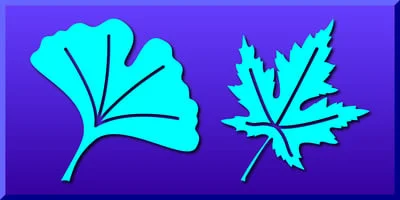
Leaf Assortment Font
Leaf Assortment Font is ideal for botanical garden signage, eco-friendly product packaging, nature education materials, organic farm branding, environmental conservation campaigns, herbarium displays, forest therapy centers, sustainable lifestyle blogs, natural skincare packaging, and any green project that celebrates the incredible diversity and natural beauty of plant life and ecological awareness.
What makes Leaf Assortment Font exciting is its comprehensive botanical collection that captures the infinite diversity and intricate beauty of nature's most essential elements. This typeface embodies the essence of botanical discovery with carefully illustrated leaf symbols representing everything from delicate ferns to mighty oak leaves, creating a visual encyclopedia of plant diversity. The font's educational character makes it perfect for brands and projects that want to communicate environmental awareness, natural beauty, and the fascinating complexity of botanical ecosystems.
The Leaf Assortment Font family includes extensive botanical categories and seasonal variations, featuring deciduous trees, evergreens, tropical plants, herbs, and wildflowers along with decorative vine elements and nature-inspired ornamental details. This comprehensive collection allows designers to create authentic botanical typography that maintains the font's signature natural character while providing incredible versatility for various environmental and educational design applications.
When exploring authentic botanical typography, Leaf Assortment Font offers designers an exceptional opportunity to work with a typeface that genuinely captures the spirit of botanical education and environmental stewardship. This font demonstrates innovative design thinking by creating scientifically accurate leaf representations that maintain both artistic appeal and educational value, making complex botanical concepts accessible and visually engaging.
Professional designers appreciate Leaf Assortment Font for its ability to instantly communicate environmental themes and natural beauty across various educational and commercial platforms. The font's organic character makes it particularly effective for conservation organizations, botanical institutions, and eco-conscious businesses seeking to create memorable identities that resonate with audiences passionate about environmental protection and natural science.
The universal appeal of Leaf Assortment Font lies in its perfect representation of our connection to the natural world and the importance of botanical diversity in sustaining life on Earth. This typeface serves as a powerful tool for communicating environmental education and the critical need for plant conservation in our rapidly changing world.
For creative professionals working with environmental and educational brands, Leaf Assortment Font represents the ultimate typography solution that brings authentic botanical beauty and environmental awareness to any application, ensuring designs reflect the incredible diversity and essential importance of plant life in our global ecosystem.